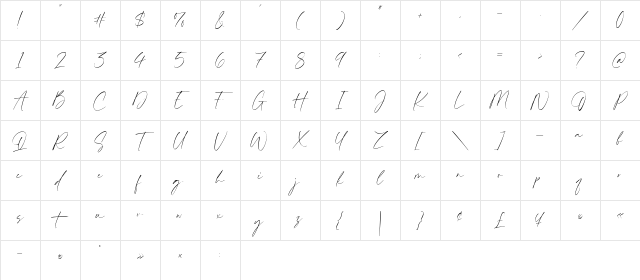
Maldives Signature Regular
Complete Maldives Signature Regular glyph index. Displaying only characters natively supported by Maldives Signature Regular font.
Design Context for Maldives Signature
Maldives Signature is a composed and adaptable typeface that performs quietly and consistently across a wide range of design contexts.